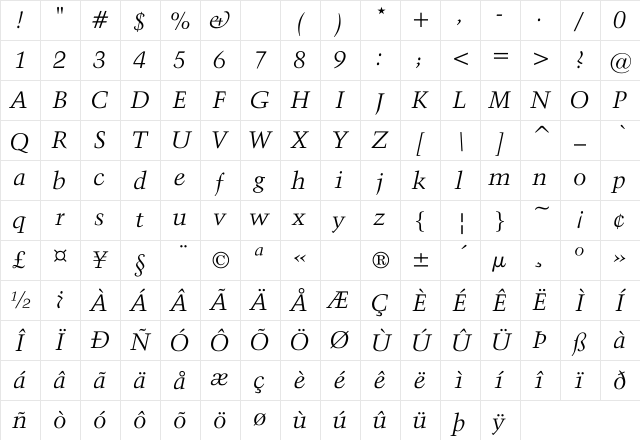
Activa-Italic is a composed and adaptable typeface that performs quietly and consistently across a wide range of design contexts. The slanted form adds forward momentum and visual energy.
Pro Tip: Use Activa-Italic for emphasis, pull quotes, and subheadings where its slanted energy can add rhythm to the layout.